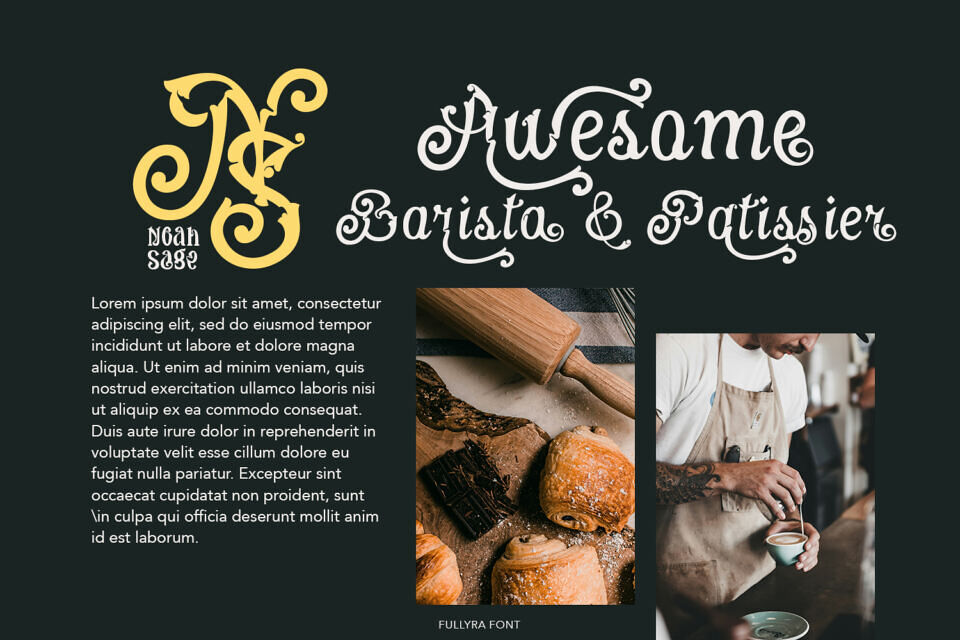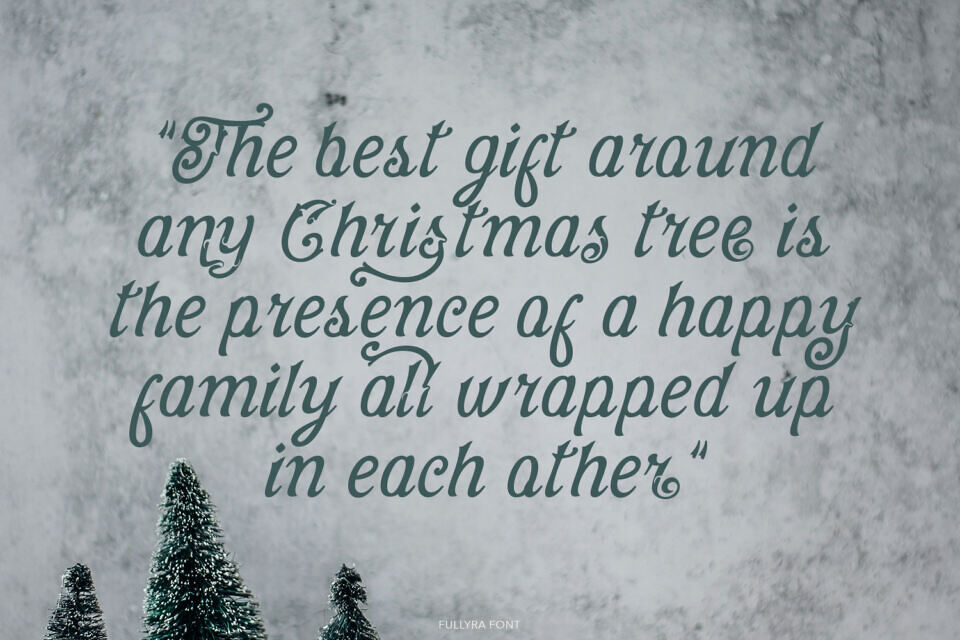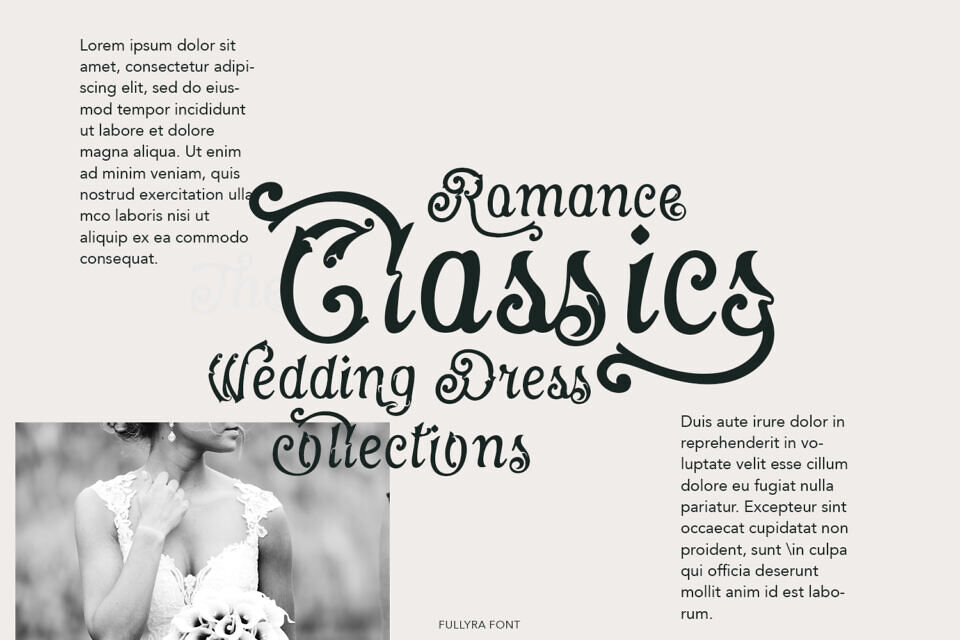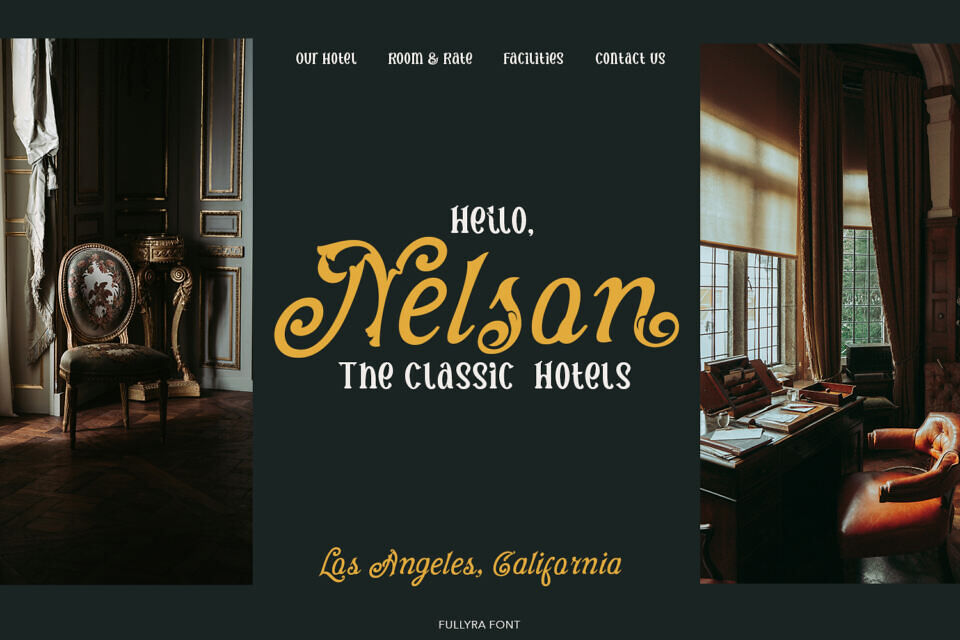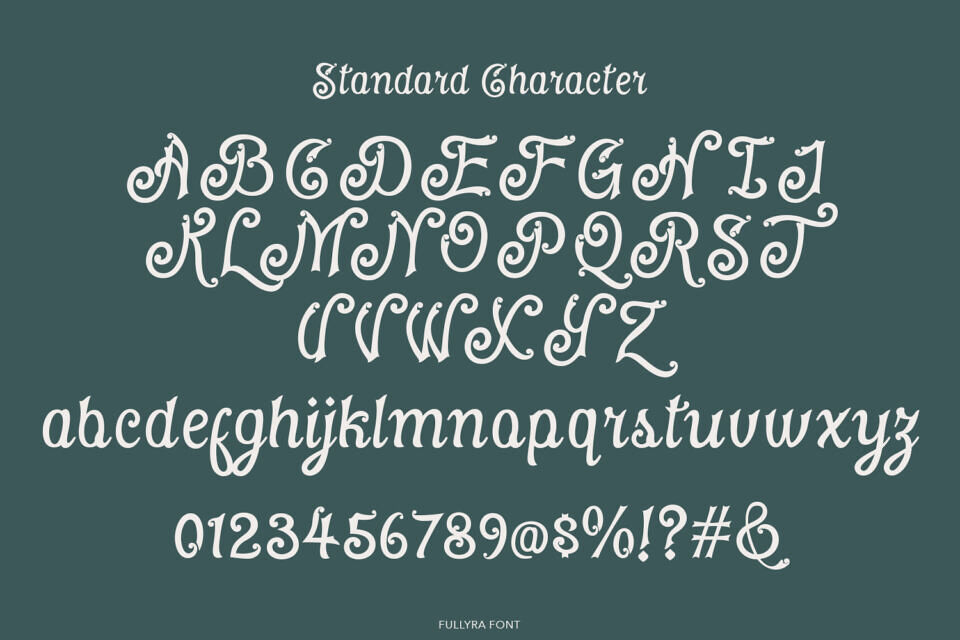
Fullyra Font
Fullyra is a script font with a timeless, elegant style that flows in graceful waves and curls. This font has the power to elevate your creative ideas to new heights.
Featuring beautiful ligatures and special alternative glyphs, Fullyra allows for endless possibilities in layouts and compositions. It adds a touch of luxury and custom typographic flair to logos, websites, social media quotes, wedding branding, and more.